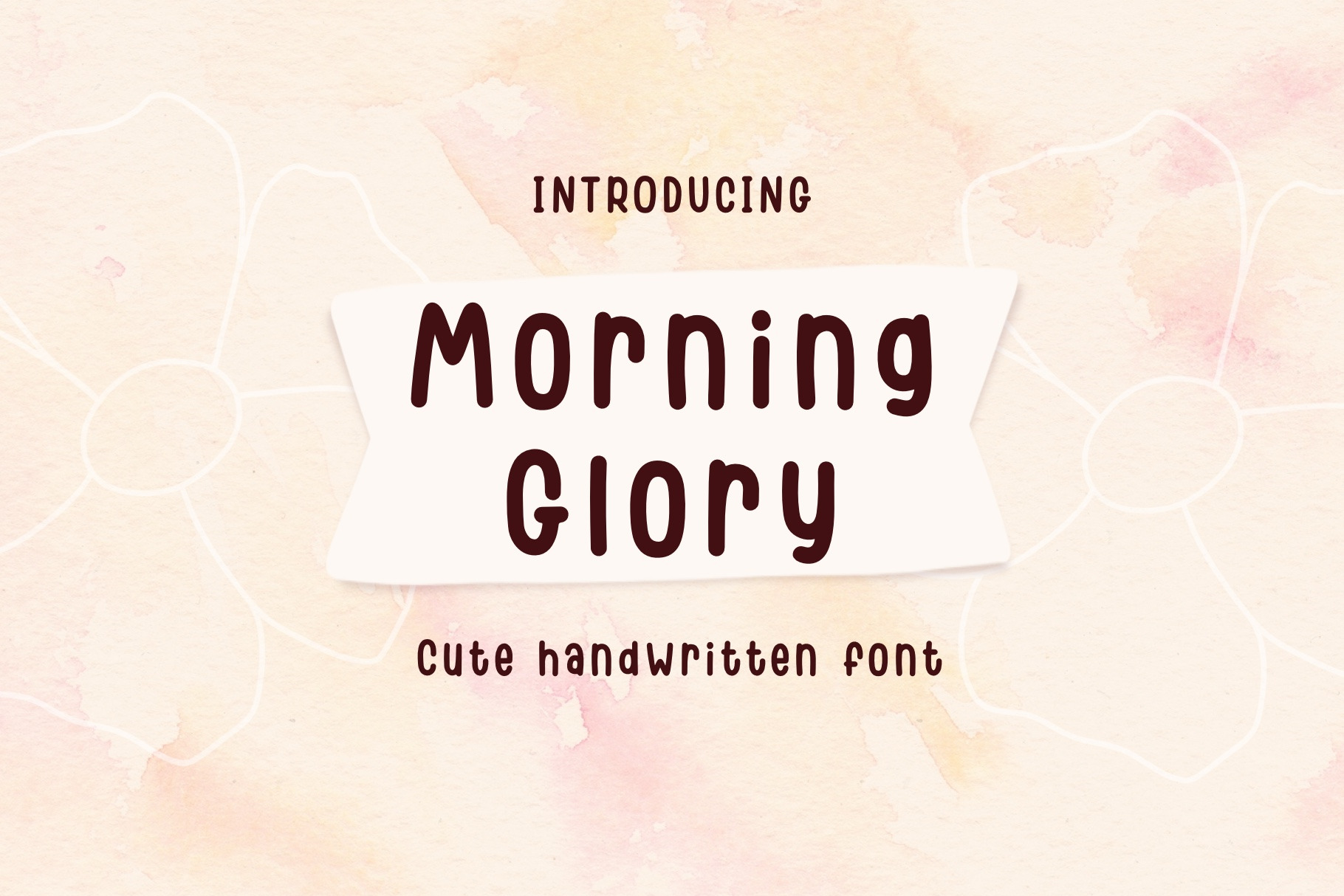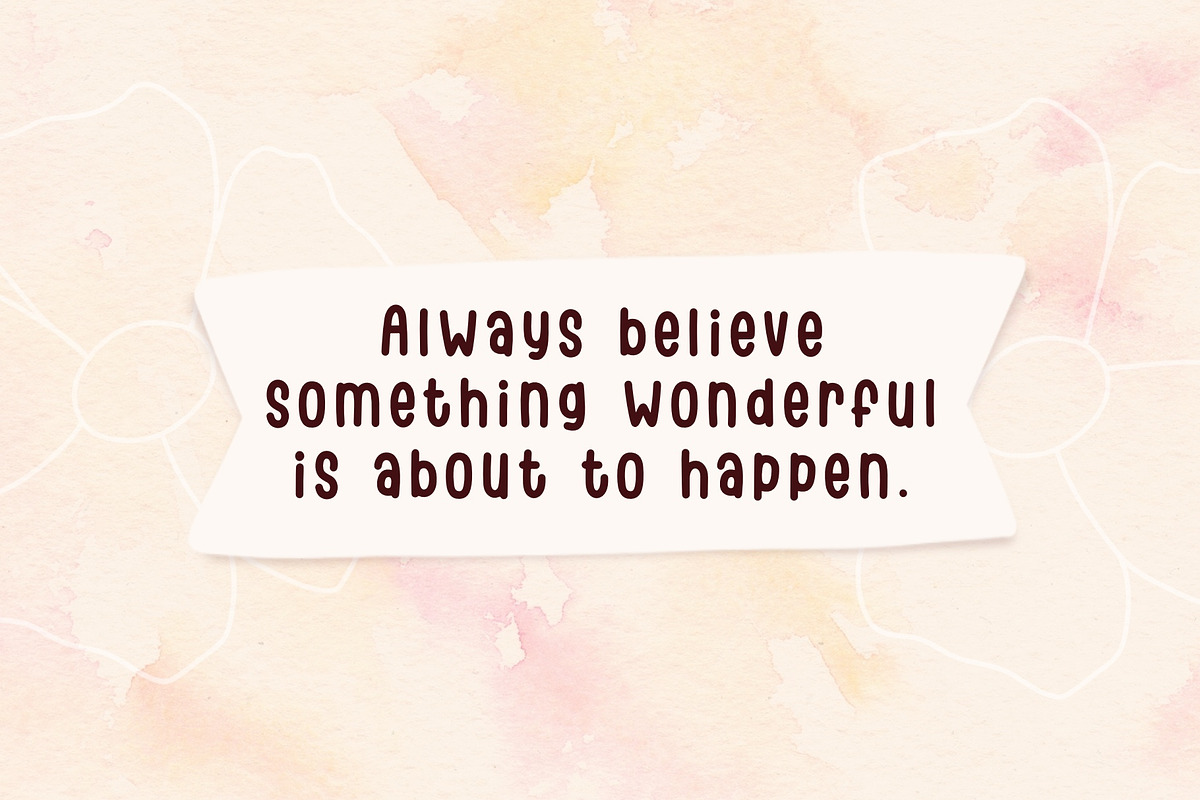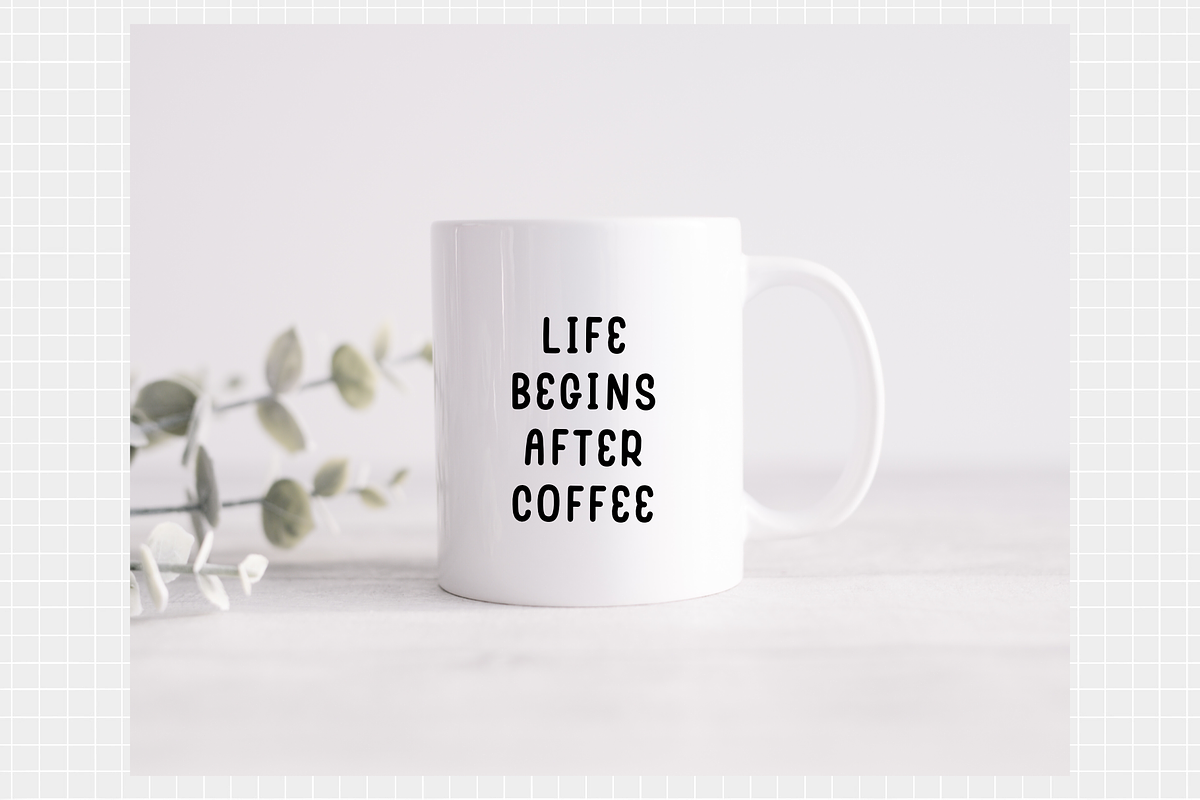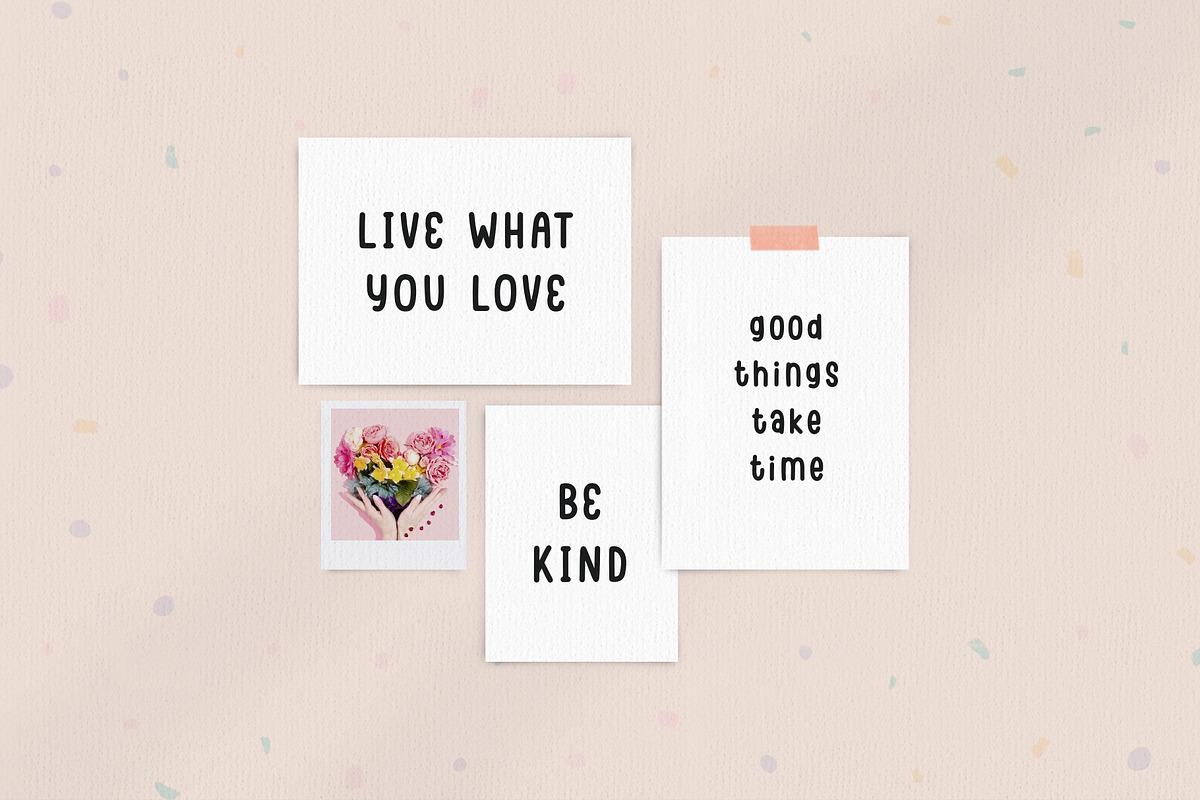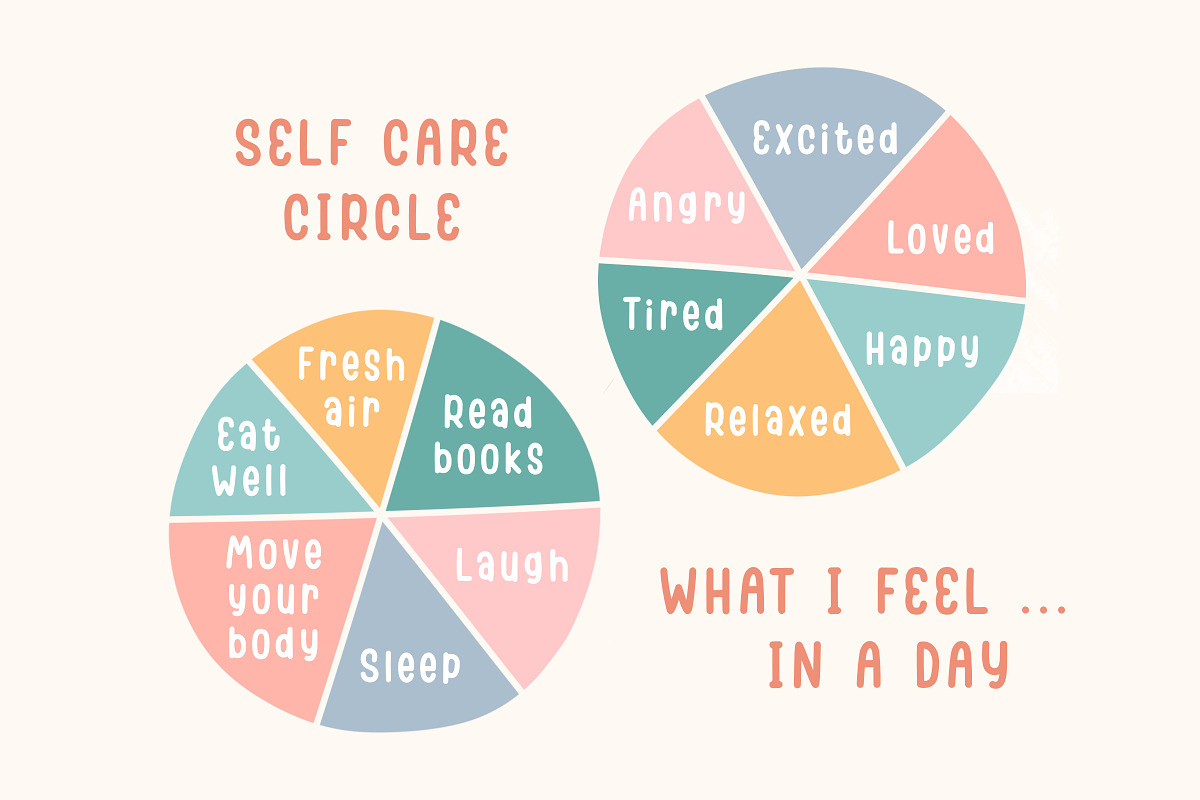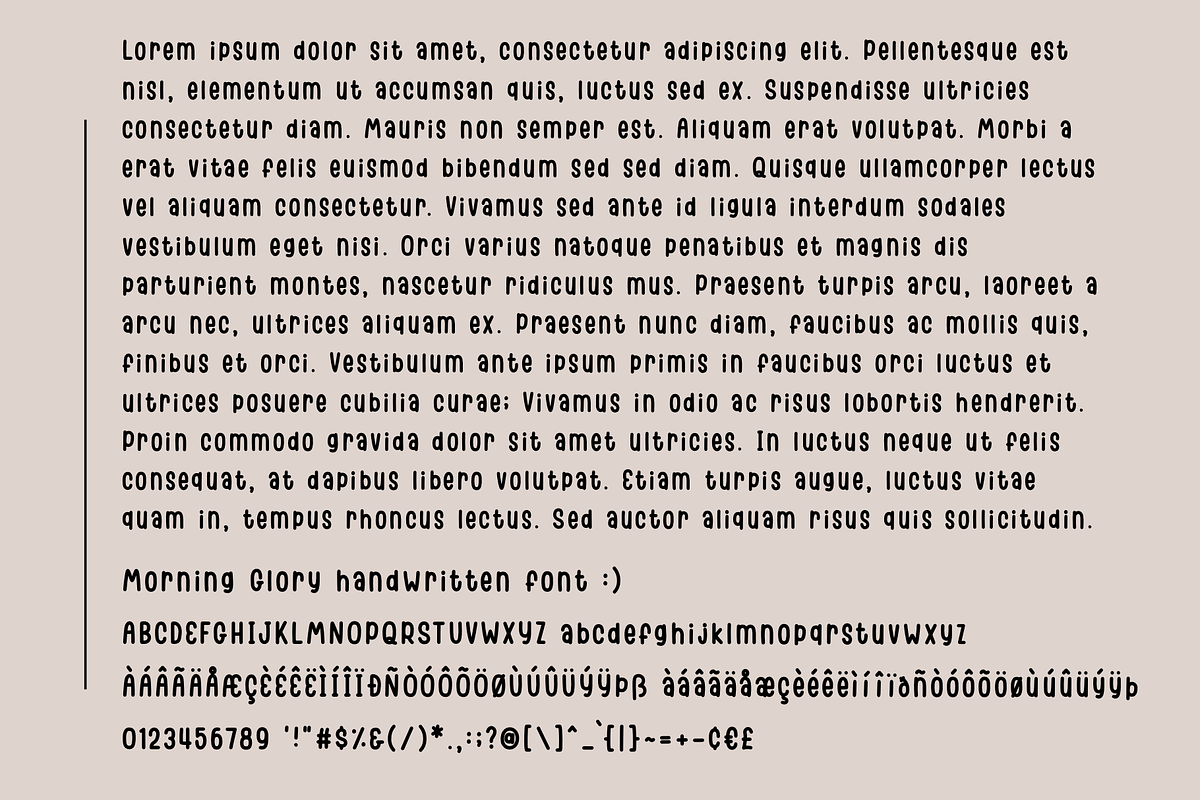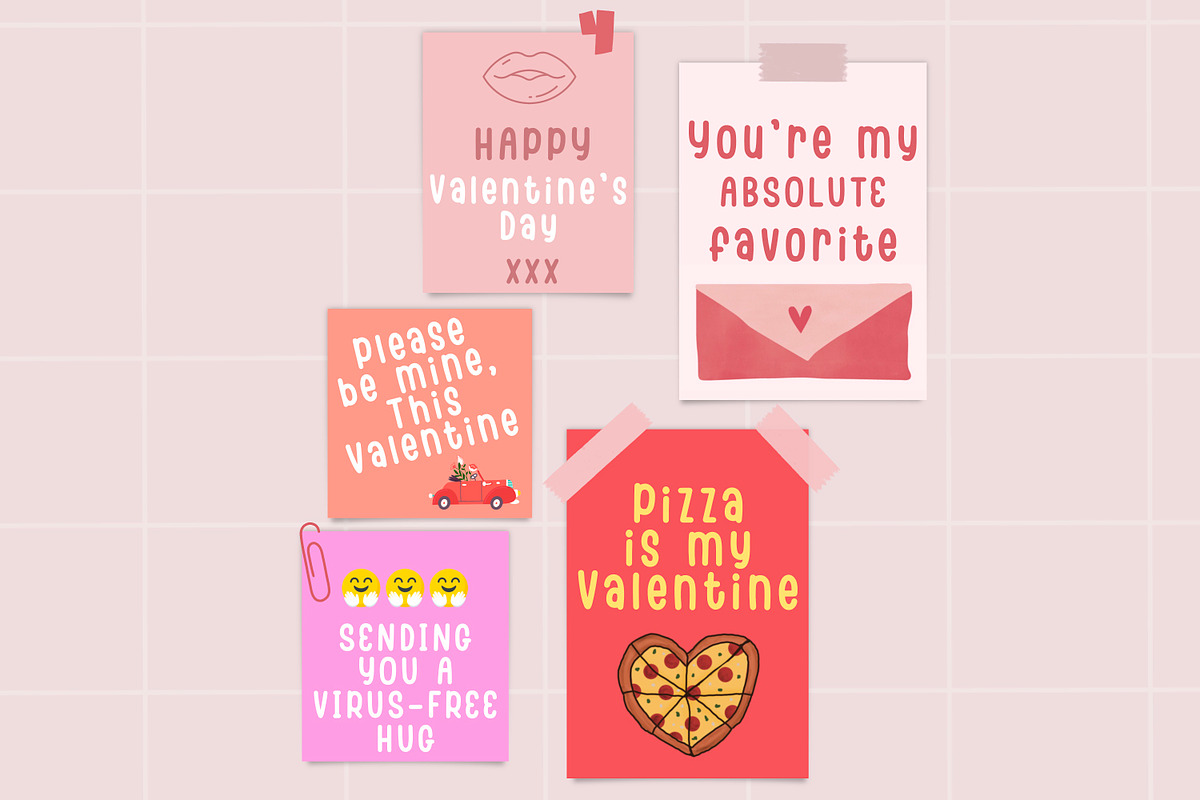
Morning Glory cute handwritten font
Morning Glory, a sweet and cute handwritten font. You can use this font in various projects - blog posts, digital planner, invitations, greeting cards, planners, photo albums, decorations and much more. Thank you :)